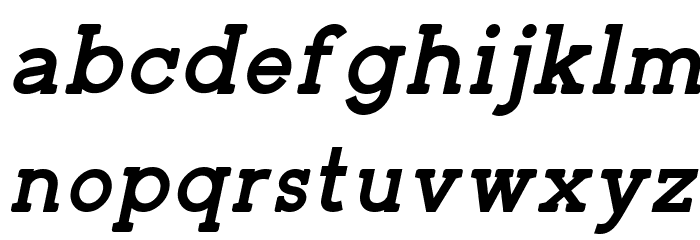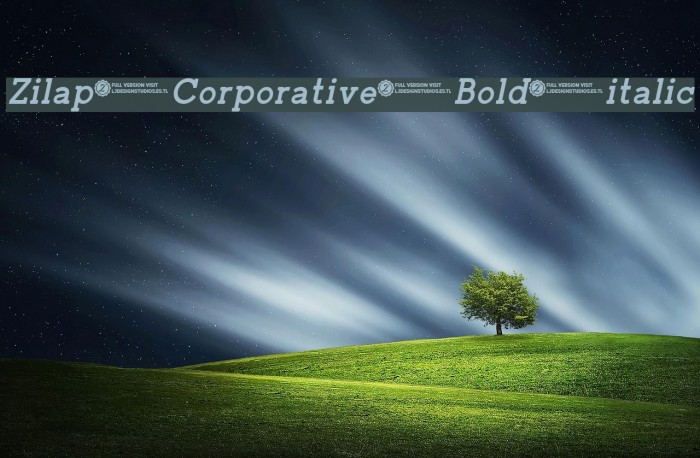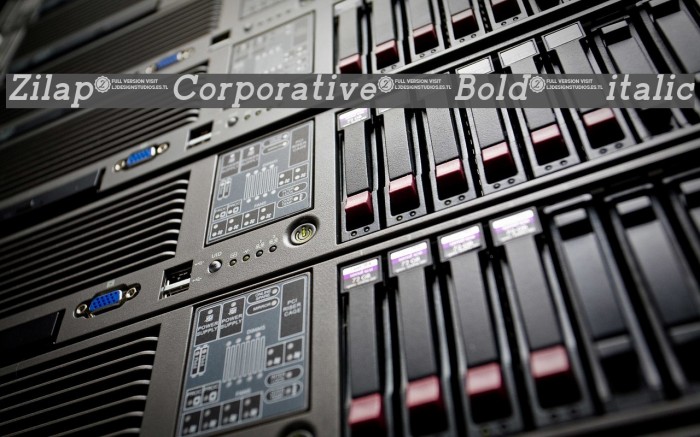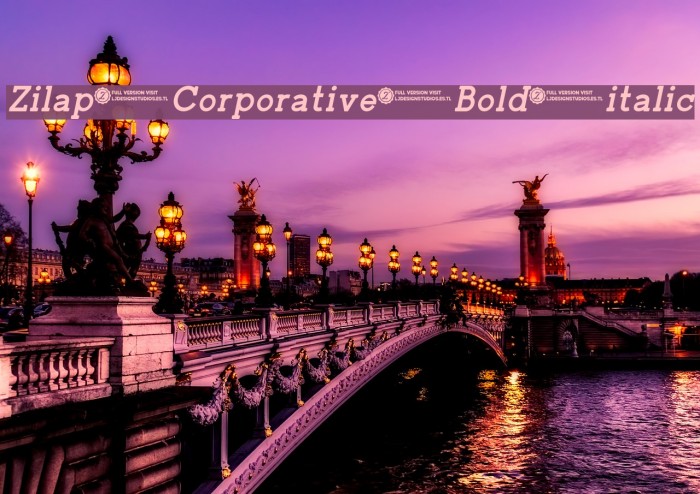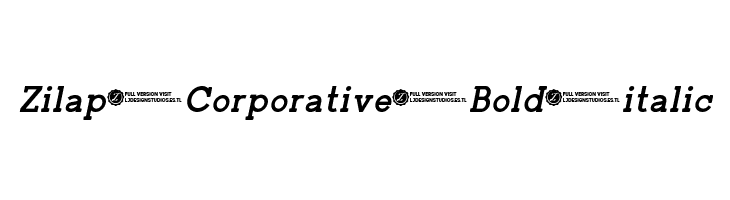
Zilap Corporative Bold italic Font
This font exhibits a bold and italicized style, characterized by strong, confident strokes and a slight slant that adds a dynamic feel. The uppercase letters are robust and commanding, while the lowercase letters maintain a consistent flow, enhancing readability. The numerals are clear and well-defined, ensuring they stand out in any context. Special characters are crafted with precision, maintaining the overall cohesive look. This font is ideal for making a statement, with its bold presence and elegant italicization.
A bold, italicized font with strong strokes and a dynamic slant.
- Proposed Projects: Ideal for branding, headlines, posters, and any design requiring a bold, dynamic presence.
- Use Case: Headlines, Logos, Branding